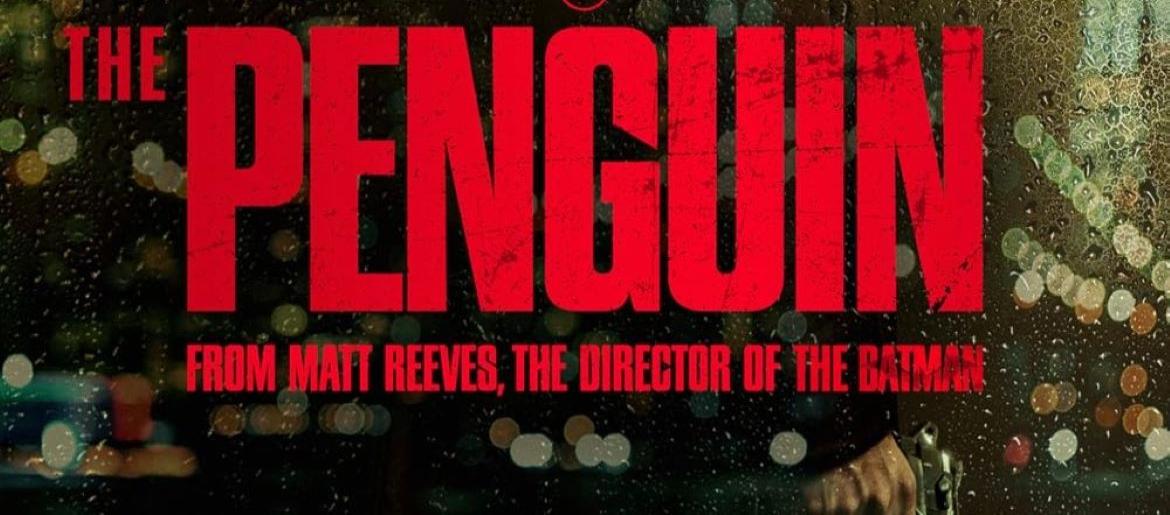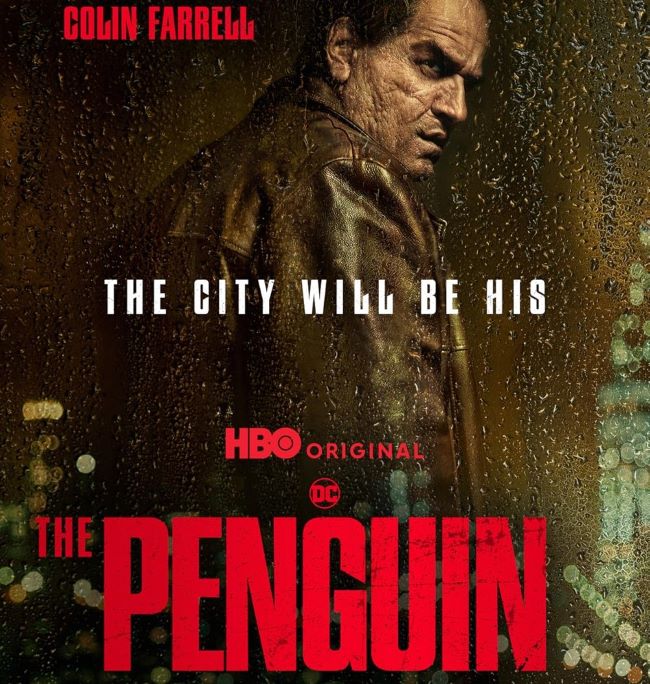
The Penguin font captures the dark, sophisticated edge of the DC character The Penguin. With its sharp, bold lettering and sleek, villainous style, the Penguin font perfectly reflects themes of power, crime, and Gotham’s underworld. I think this font is ideal for projects that need a dramatic, high-class yet menacing vibe—like comic book designs, event posters, or fan art. Its refined yet dangerous look makes it a favorite for anyone wanting to create visuals with a mix of elegance and menace. Using the Penguin font instantly adds a sense of mystery and authority that stands out. The font used in the poster is probably PL Fiorello Condensed.
The Penguin Font
The Penguin font
About The Penguin
The Penguin is a legendary DC Comics villain, famously known as Oswald Cobblepot. A cunning crime boss in Gotham City, he has appeared in numerous Batman comics, movies, and shows, including the 2024 HBO Max series focusing on his rise to power after the events of The Batman (2022).